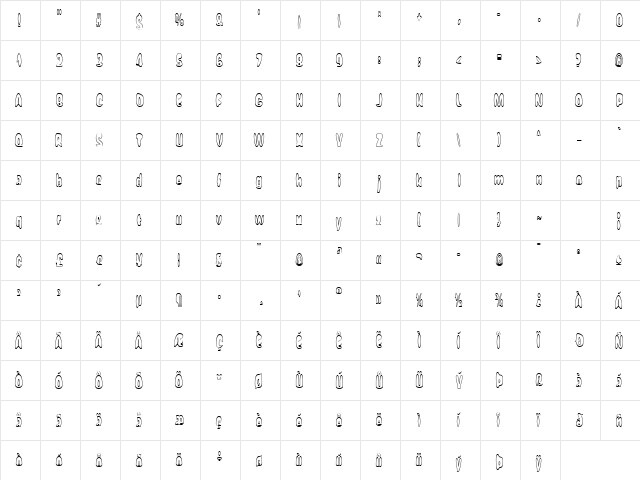
Eggit Outline AOE Regular
Design Context for Eggit Outline AOE Typeface
Eggit Outline AOE is built around its visual character rather than neutral utility — its distinctive forms are designed to make an impression at display sizes.
Font Pairing: Pair with a clean neutral sans-serif for body copy to let Eggit Outline AOE's character lead without overwhelming the composition.
Pro Tip: Use Eggit Outline AOE exclusively at display sizes — it was designed to be seen, not read at length. Let a neutral companion handle body copy.